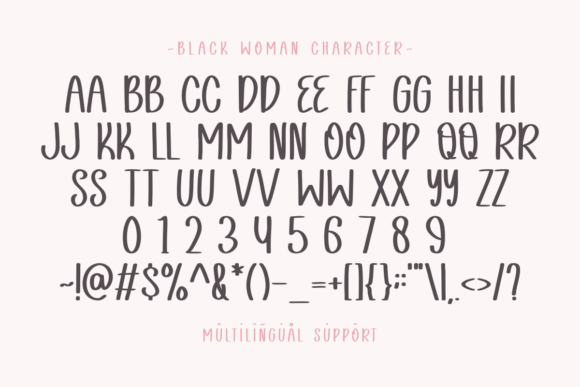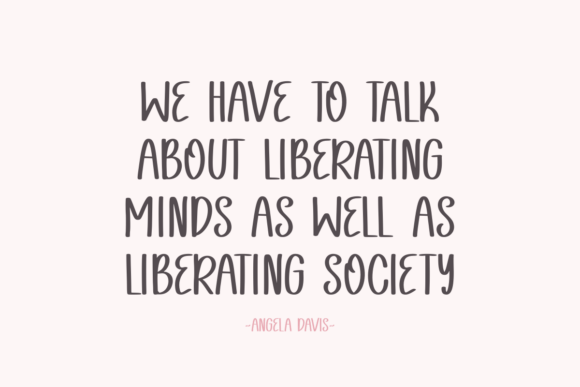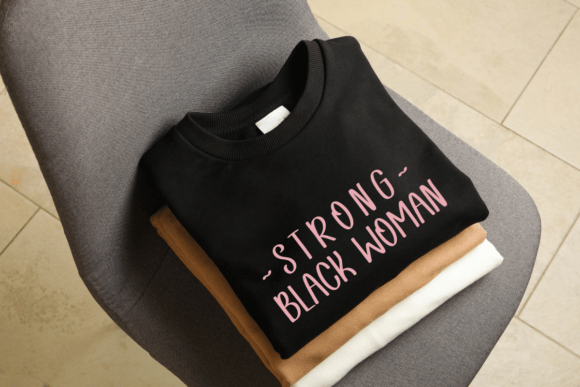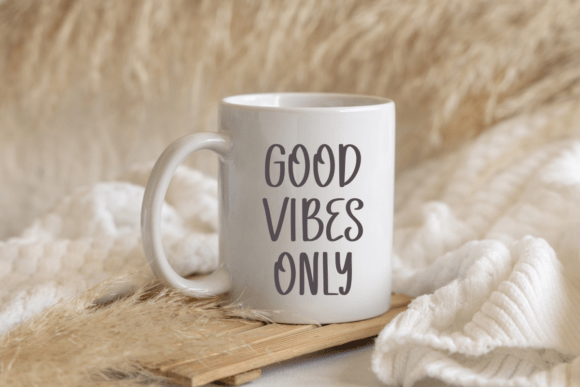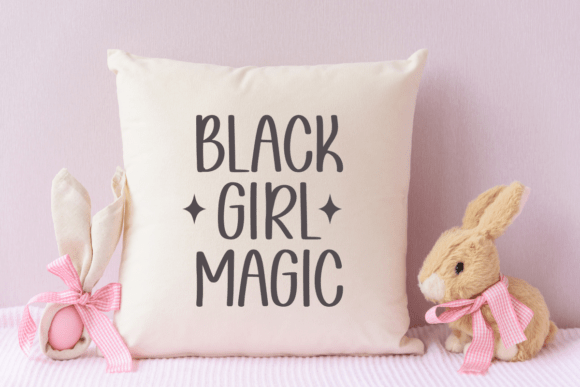
Introducing Black Woman Font: The Ultimate Holiday Cheer Addition for Your Designs
Are you looking for a font that can add a touch of festive fun to your designs? Look no further than the Black Woman Font! This sans serif font is perfect for creating holiday-themed graphics, cards, and invitations that are sure to bring a smile to anyone’s face. With its playful curves and bold lines, Black Woman Font is the ideal choice for designers and crafters who want to add a dash of holiday cheer to their work.
What Makes Black Woman Font So Special?
Black Woman Font is a unique and eye-catching font that is specifically designed to bring a touch of festive fun to your designs. Its playful curves and bold lines give it a lively and energetic feel that’s perfect for the holiday season. Whether you’re creating cards, invitations, or other holiday-themed graphics, this font is sure to make your designs stand out from the crowd.
Key Features of Black Woman Font
- Festive and Fun: Black Woman Font is the perfect choice for adding a touch of holiday cheer to your designs.
- Playful Curves: The font’s playful curves give it a lively and energetic feel that’s perfect for the holiday season.
- Bold Lines: The font’s bold lines make it easy to read and add a touch of sophistication to your designs.
- Sans Serif: The font’s sans serif design makes it perfect for creating modern and stylish graphics.
Black Woman Font is perfect for designers and crafters who want to add a touch of holiday cheer to their work. Whether you’re creating professional graphics or handmade crafts, this font is sure to bring a smile to anyone’s face. Here are just a few ways you can use Black Woman Font:
- Holiday Cards: Use Black Woman Font to create festive and fun holiday cards that are sure to impress your friends and family.
- Invitations: Create eye-catching invitations for your holiday parties and events with Black Woman Font.
- Graphics: Use Black Woman Font to create festive and fun graphics for your website, social media, or blog.
- Crafts: Add a touch of holiday cheer to your handmade crafts, such as scrapbooking, sewing, or paper crafting.
Tips for Using Black Woman Font
Here are a few tips for using Black Woman Font to get the most out of this amazing font:
- Pair with Other Fonts: Pair Black Woman Font with other fonts to create a unique and eye-catching design.
- Add Graphics: Add graphics and images to your design to make it more visually appealing.
- Keep it Simple: Don’t be afraid to keep it simple and use Black Woman Font on its own to create a bold and eye-catching design.